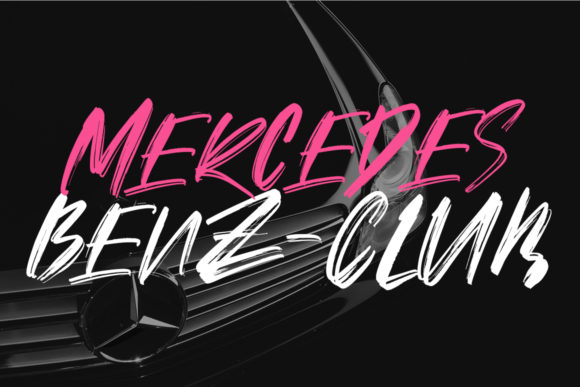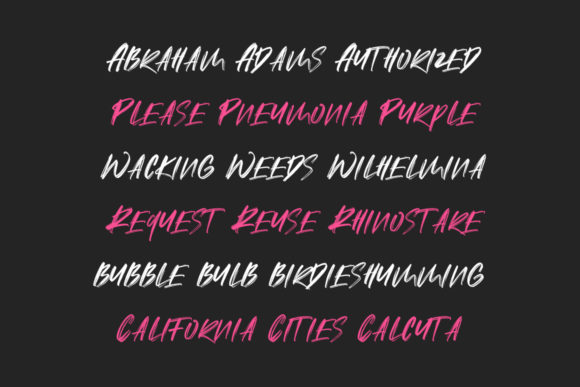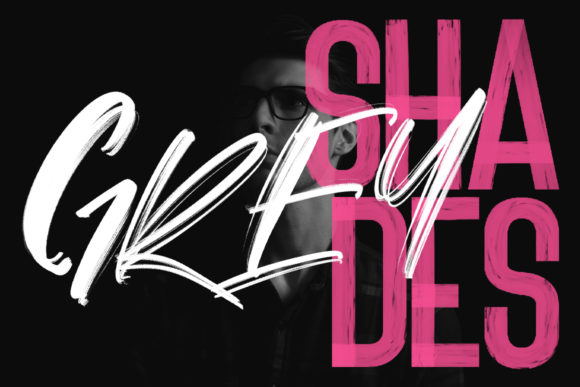
Introducing Chorus Font: Elevate Your Designs with this Urban Styled Duo Font
In the world of typography, a font can make or break a design. It’s the foundation upon which your creative vision is built, and the right choice can elevate your project from ordinary to extraordinary. If you’re a designer, craftsperson, or simply a creative enthusiast, you’re likely always on the lookout for fonts that can add a touch of sophistication and style to your work. That’s where Chorus Font comes in – a lovely and urban styled duo font that combines the elegance of script with the modernity of sans serif.
The Chorus Font Difference
Chorus Font is not just any font; it’s a duo font that pairs a beautiful script font with a clean sans serif font. This combination offers versatility like no other, making it an incredibly valuable asset to your font library. Whether you’re working on a branding project, a website, or a craft project, Chorus Font has the potential to elevate your creation and make it stand out from the crowd.
Urban Styled with a Touch of Elegance
The urban style of Chorus Font is characterized by its clean lines, modern aesthetic, and a dash of sophistication. The sans serif component of the font is perfect for headlines, titles, and any text that needs to make a bold statement. Meanwhile, the script font adds a touch of elegance and fluidity, ideal for adding a personal touch to your designs. This combination ensures that your work looks contemporary, yet refined and polished.
One of the standout features of Chorus Font is its versatility. No matter the topic or theme of your project, this font duo can adapt and complement it beautifully. From fashion and beauty to technology and education, Chorus Font’s urban style and elegant script can breathe life into your designs. It’s perfect for a wide range of applications, including:
- Branding and logos: Create a lasting impression with a unique and memorable brand identity.
- Web design: Enhance user experience with a clean, readable, and stylish font.
- Print design: Elevate your brochures, posters, and flyers with a modern and sophisticated look.
- Craft projects: Add a professional touch to your handmade crafts, such as journals, cards, and DIY decor.
Why Choose Chorus Font?
With so many fonts available, why should Chorus Font be your go-to choice? Here are a few compelling reasons:
- Unique Style: Stand out from the crowd with a font that combines urban modernity with classic elegance.
- Versatility: Use it across various projects and applications, from digital to print.
- Ease of Use: The duo font is designed to work seamlessly together, making it easy to create cohesive and stylish designs.
- High-Quality: Crafted with attention to detail, Chorus Font ensures that your designs look professional and polished.
Chorus Font is more than just a font – it’s a design solution that can transform your projects and elevate your creative work. Its unique blend of urban style and elegance, combined with its versatility and ease of use, makes it an invaluable addition to any font library. Whether you’re a seasoned designer or a crafty enthusiast, Chorus Font is sure to become your new favorite go-to font. So why wait? Discover the creative possibilities with Chorus Font today and take your designs to the next level.